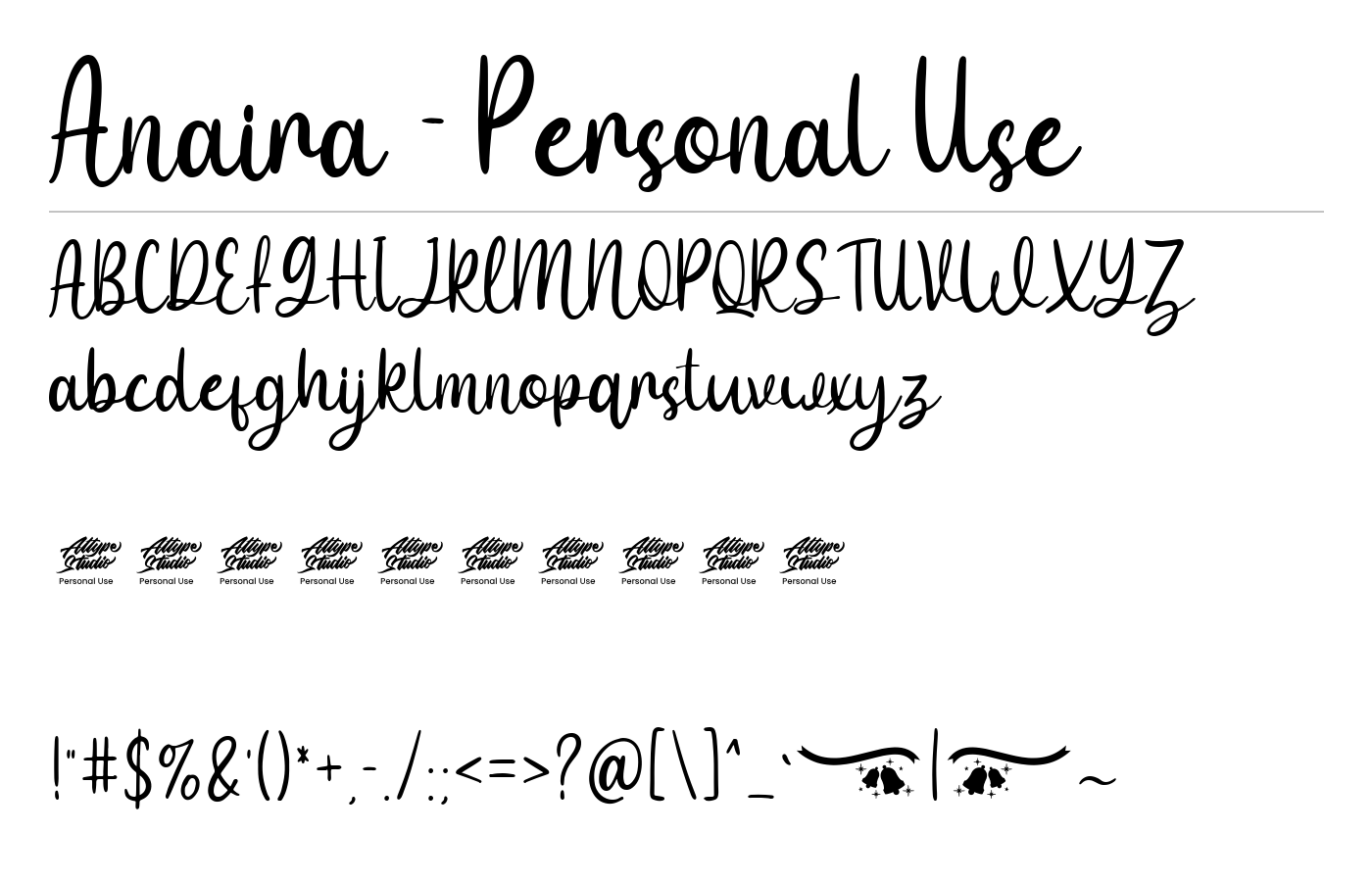
Anaira is a playful and stylish handwritten script font featuring slender, flowing letterforms with a clean, casual feel. Its consistent stroke weight and smooth curves give it a personal, friendly touch, making it ideal for creative projects, invitations, and branding that seek a warm, approachable vibe. This font works beautifully in headlines, logos, and packaging where a handwritten elegance is desired.
Anaira - Personal Use Font
About Anaira - Personal Use Font